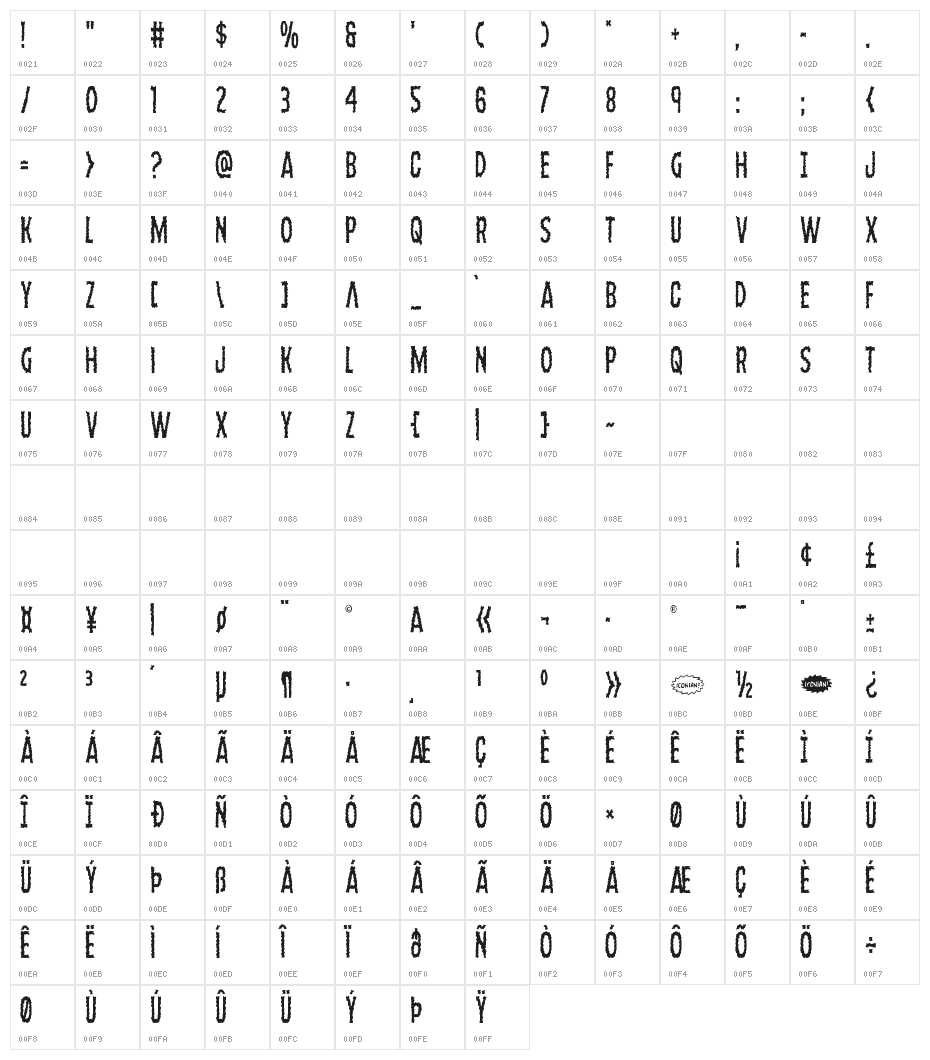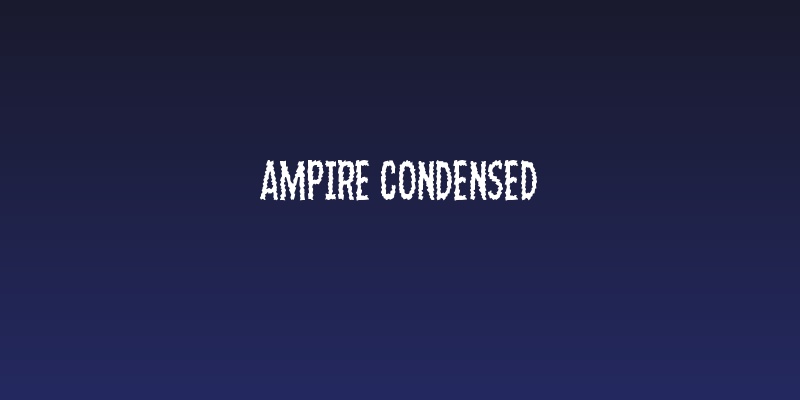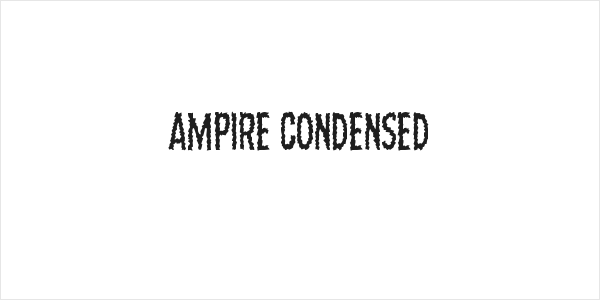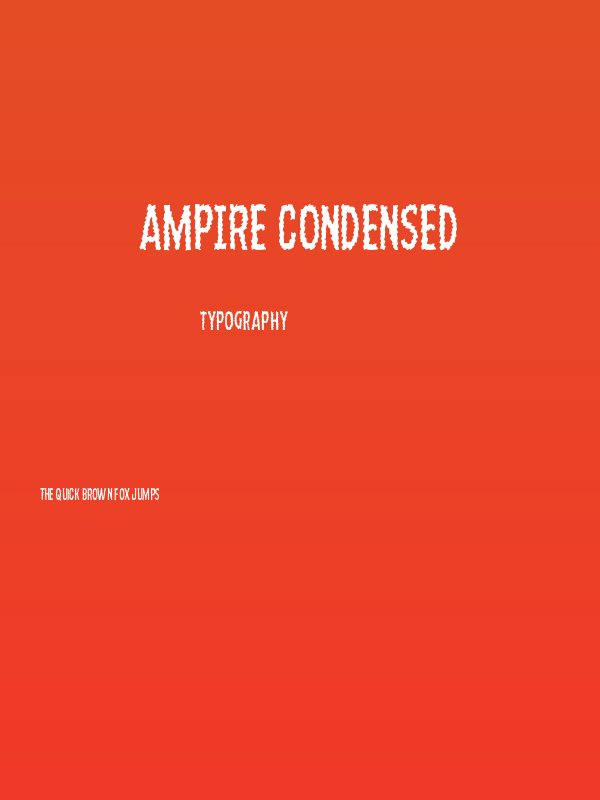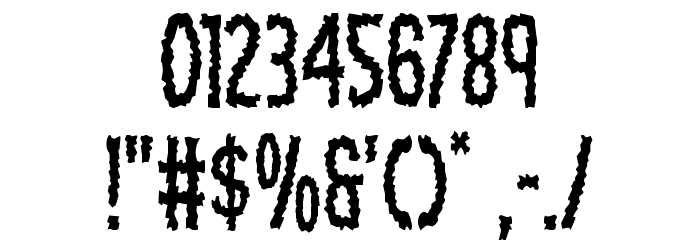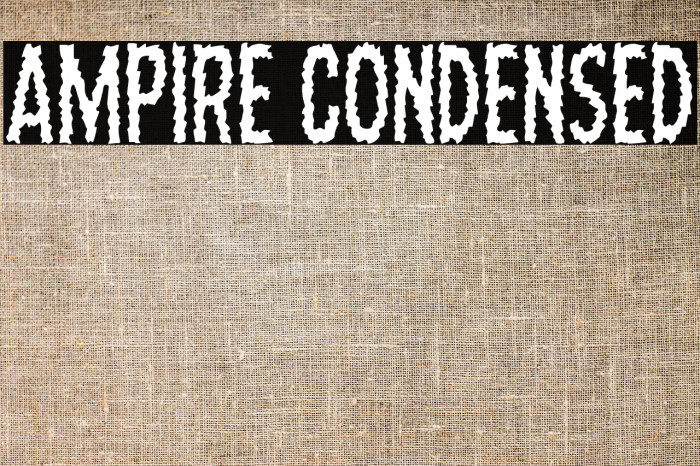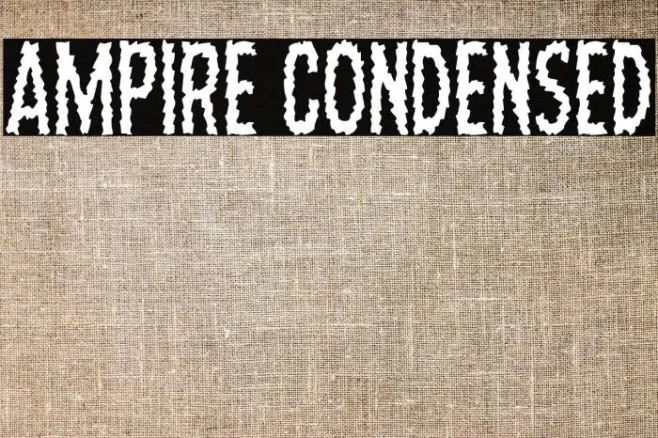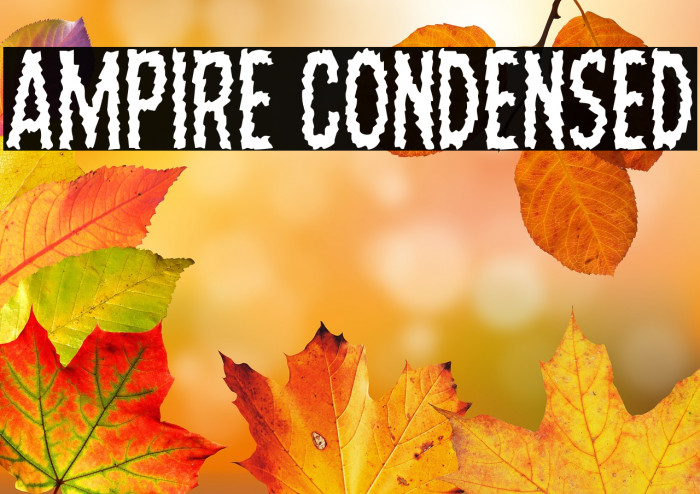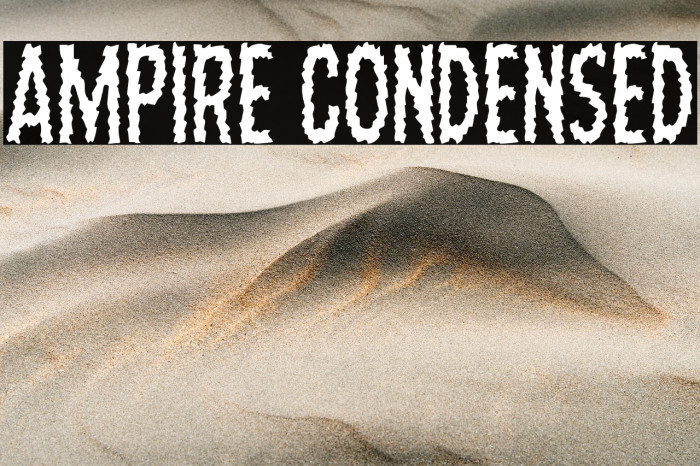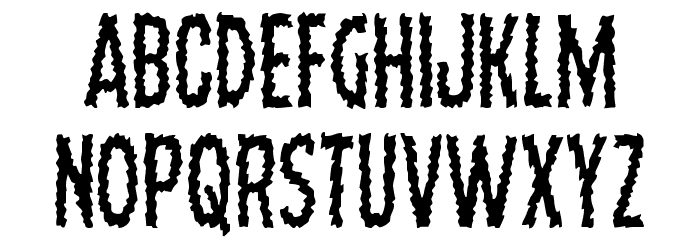
Ampire Condensed Font
Ampire Condensed Description
This font features a jagged, distressed appearance that gives it a unique, edgy style. The characters are condensed, with sharp, irregular edges that create a sense of movement and energy. The uppercase and lowercase letters maintain a consistent height, contributing to a cohesive look. Numbers and special characters follow the same design principles, ensuring uniformity across all glyphs. This font's bold and striking design makes it ideal for projects that require a strong visual impact.
| Overall Style | Edgy, Modern, Distressed |
| Proposed Projects | Ideal for music album covers, horror movie posters, edgy branding, and graphic novel titles. |